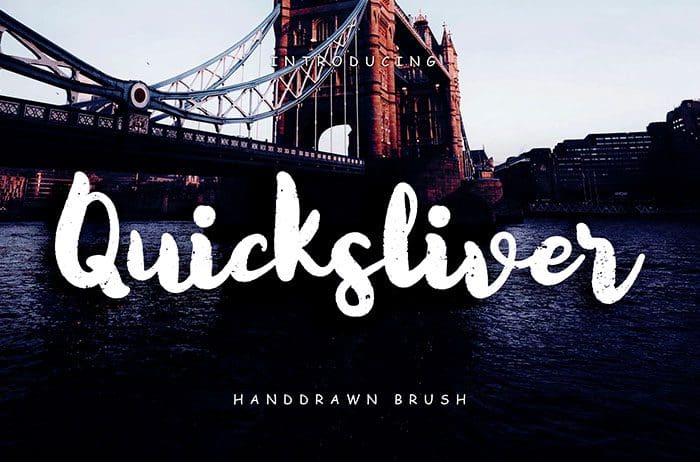
Quicksliver Script Font
Quicksliver is a script font that looks fun and strong bold style. Quicksliver is perfect for branding projects, logo, invitation, and more. Thanks to Creatype Studio for sharing this font! Take a look at this portfolio for more of his stunning fonts.